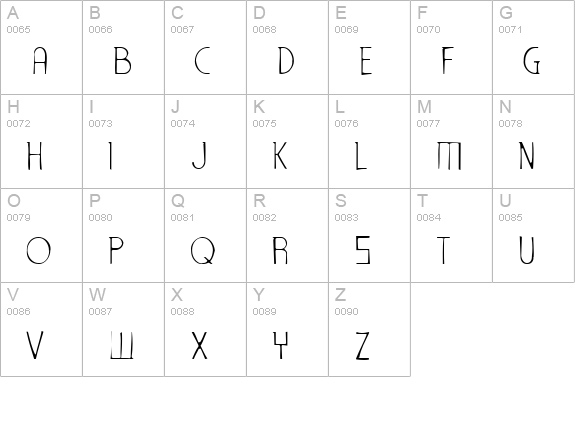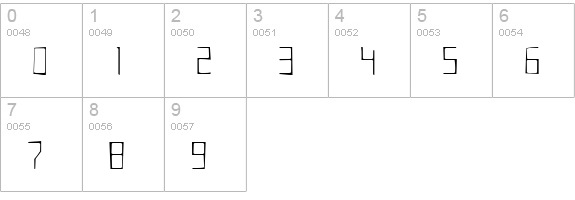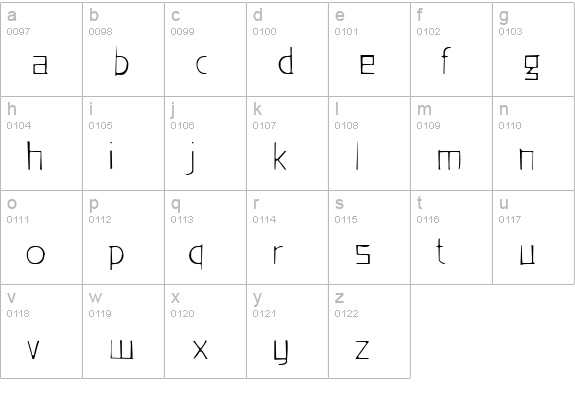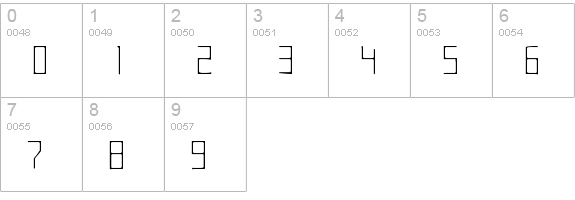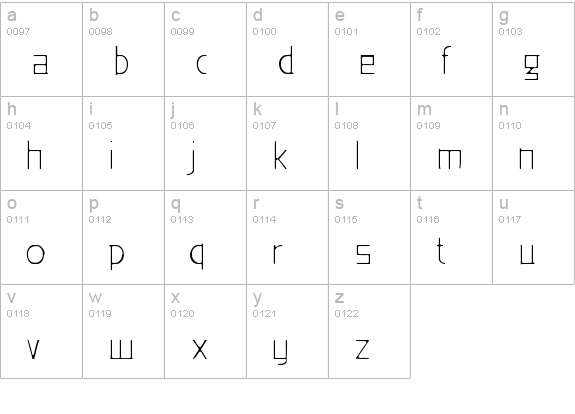
Eden Mills Gaunt font is a beautifully crafted typeface that exudes elegance and sophistication. With its delicate lines and unique flourishes, this font is perfect for adding a touch of refinement to any design project. The intricate details of the characters make Eden Mills Gaunt font stand out, giving your text a timeless and classic appeal. What makes Eden Mills Gaunt font even more appealing is that it is available for free download at FontsMarket.com. This means that you can easily access this stunning font without any cost, making it a valuable addition to your font collection. Whether you're working on a branding project, invitations, or any other creative endeavor, Eden Mills Gaunt font is sure to elevate your designs with its charm and grace. Download this exquisite font today and add a touch of sophistication to your work!